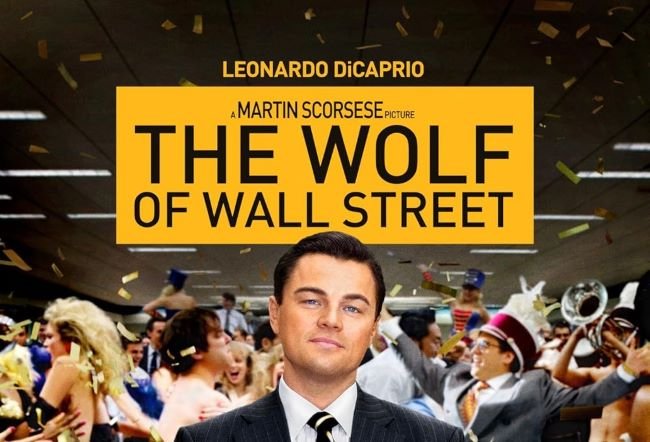
The Wolf of Wall Street Font
The Wolf of Wall Street font arrives on the poster with the same shameless confidence as Jordan Belfort arriving at a client lunch in a Ferrari — bold, clean, and absolutely certain it is the most important thing in the room. Martin Scorsese’s 2013 film demanded title lettering that could convey the specific excess of 1990s Wall Street: not the old-money restraint of a Goldman Sachs memo, but the brash, nouveau-riche swagger of a man who made $49 million in three years and spent every cent of it before Friday. The typography delivers that slick corporate aggression through Helvetica Bold and Futura Extra Bold-adjacent grotesques — clean, modern, and zero apologies. Two alternatives reconstruct that sharp, high-stakes energy: Alternative 1 and Alternative 2.